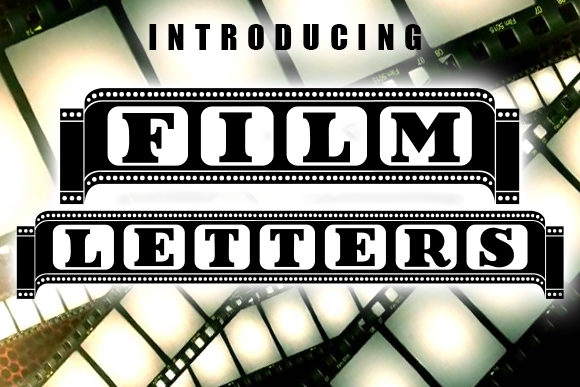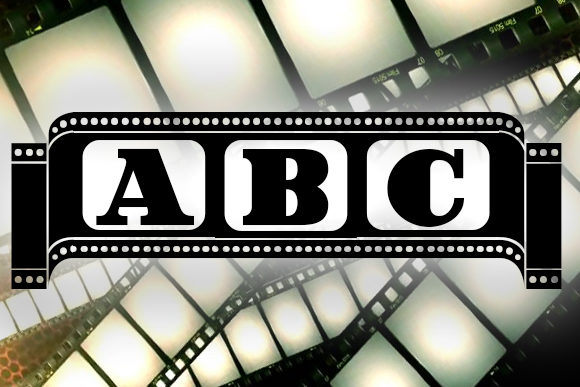
Film Letters Font
About the Film Letters Font
Introducing the Film Letters Font, a beautifully crafted typeface designed to elevate your creative projects. Film Letters is an awesome decorative font done in old movie film style. It would look great on any poster, banner, or headline.
Film Letters’ strong, vintage aesthetic makes it ideal for projects evoking nostalgia or a retro feel. It excels in headlines, posters, and branding applications where a bold statement is required, particularly for entertainment, vintage clothing, or classic-themed businesses. Avoid using it for body text or UI elements; its decorative nature hinders readability in extended passages.
Consider Film Letters for projects requiring a strong visual impact. Its character is best suited for short, impactful text, where its unique style can shine.
Film Letters Font Usage Examples
Film Letters Font Example